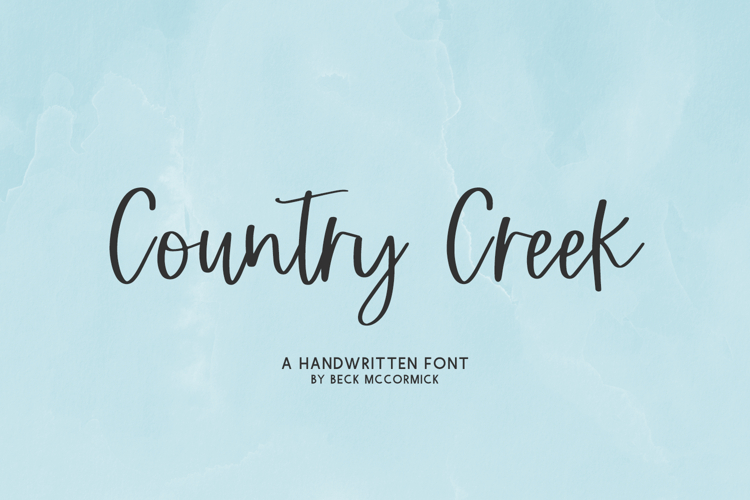
Introducing Country Creek, a neat & tidy modern calligraphy script.
Country Creek is best for:
- feminine, crafty projects with your Cricut or Silhouette machine, or your SVG design business
- farmhouse decor and crafts
- digital planners & apps like Goodnotes
- website design + website accents, blog design
- feminine graphic tee shirt design & other apparel